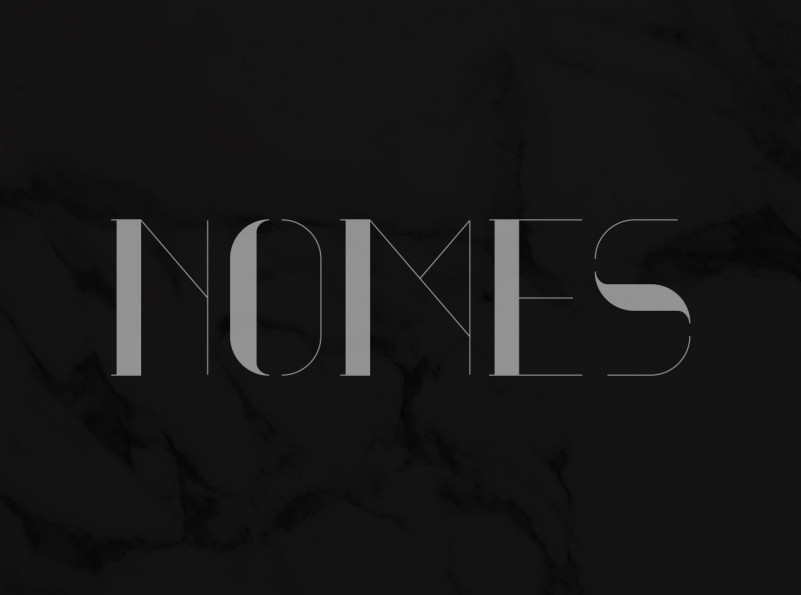
Nomes Font
Nomes Typeface
Nomes is an uppercase elegant serif typeface that is free for personal and commercial for designers. The font is characterised by a thin line forming around half of each letter. Its beauty comes from the contrast between the think and thin parts in every alphabet.